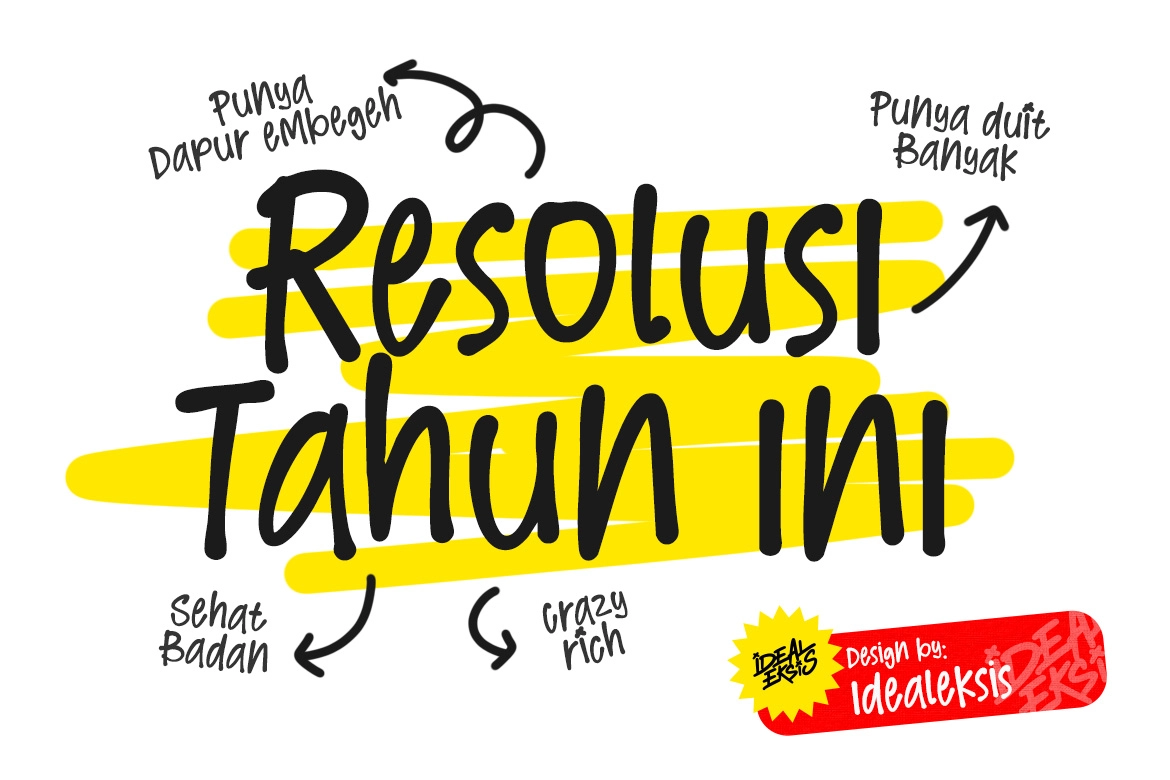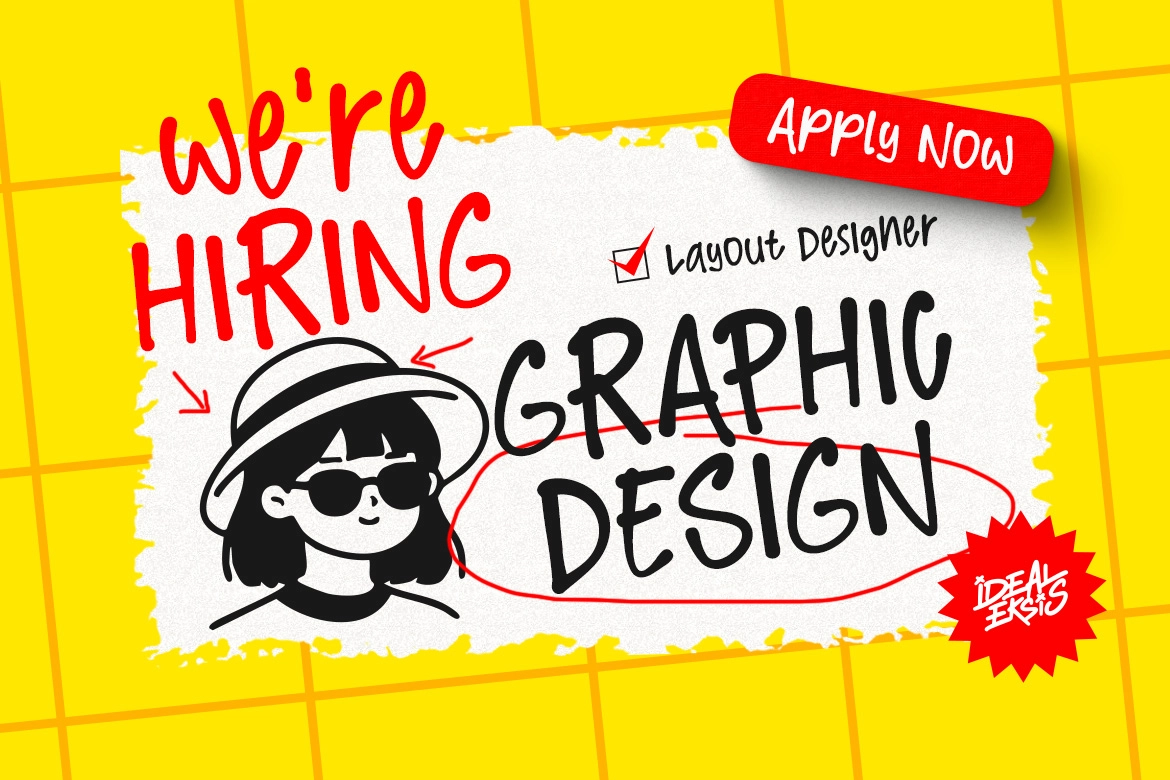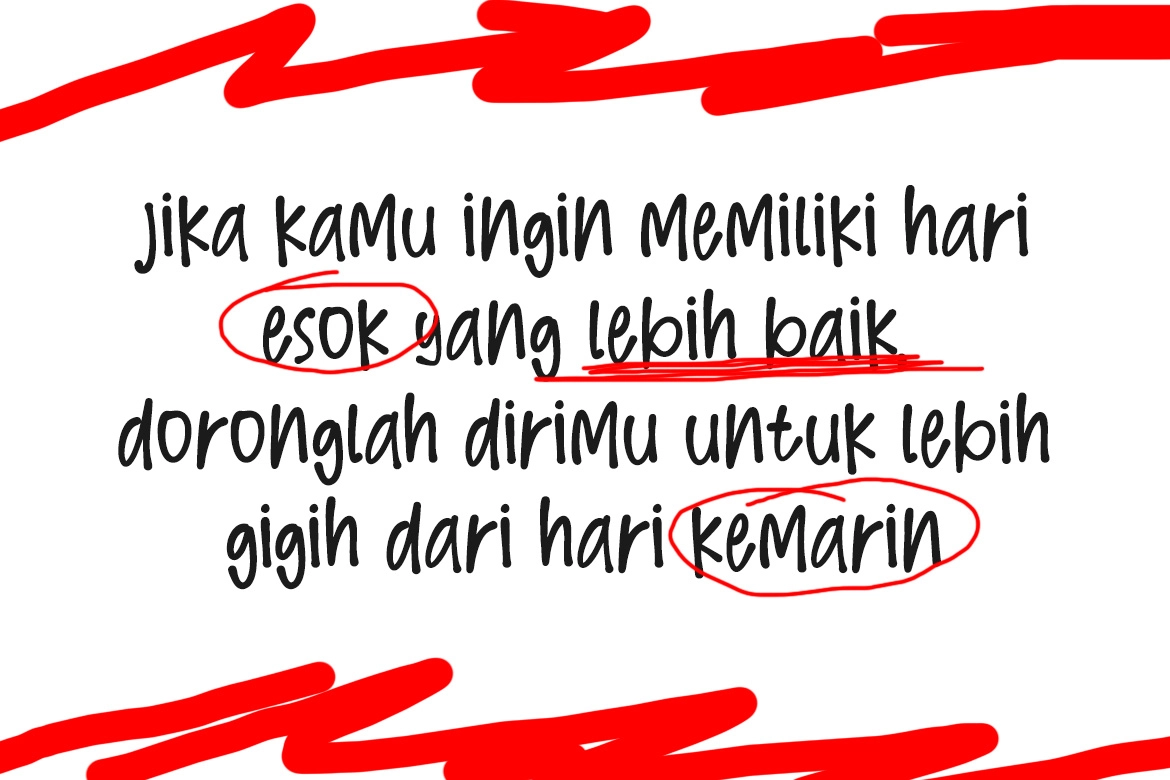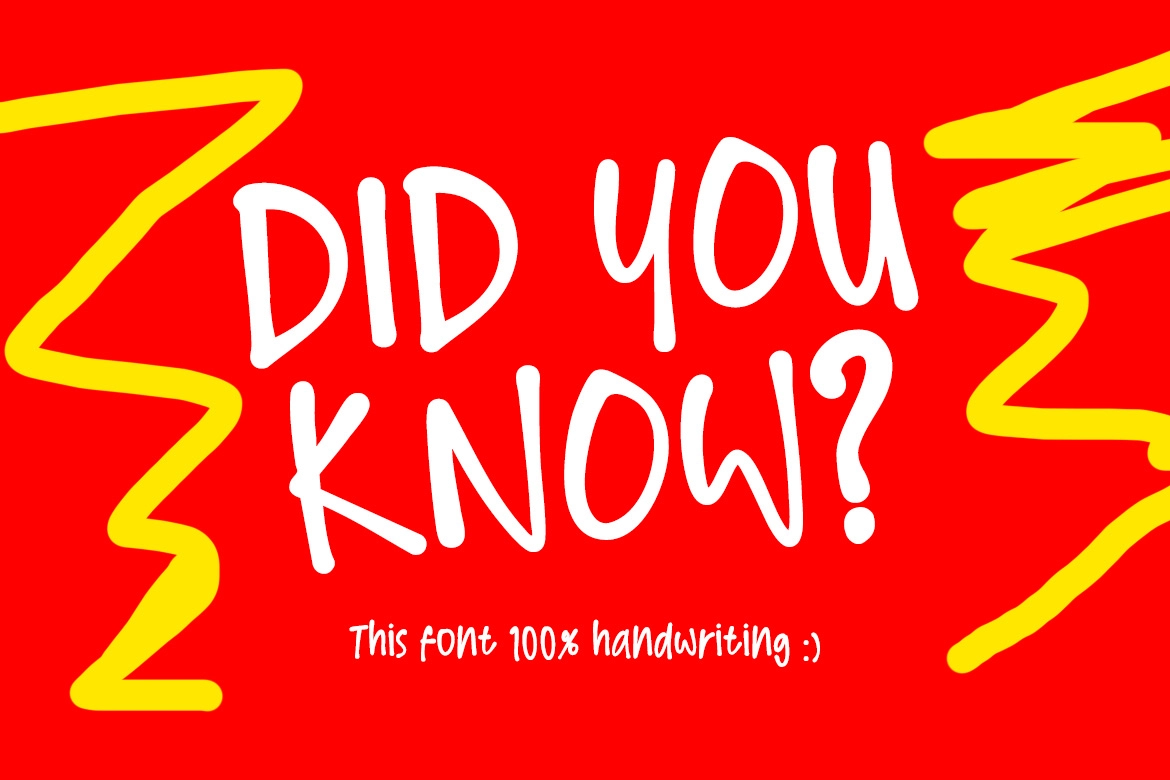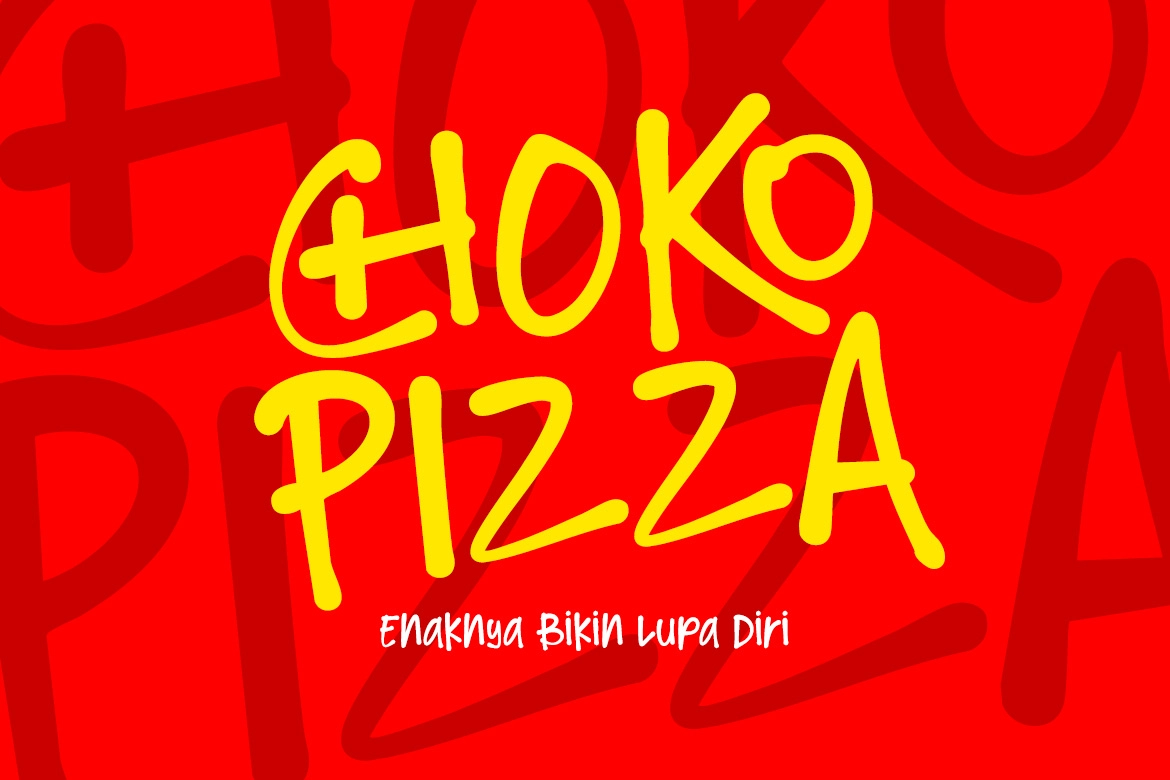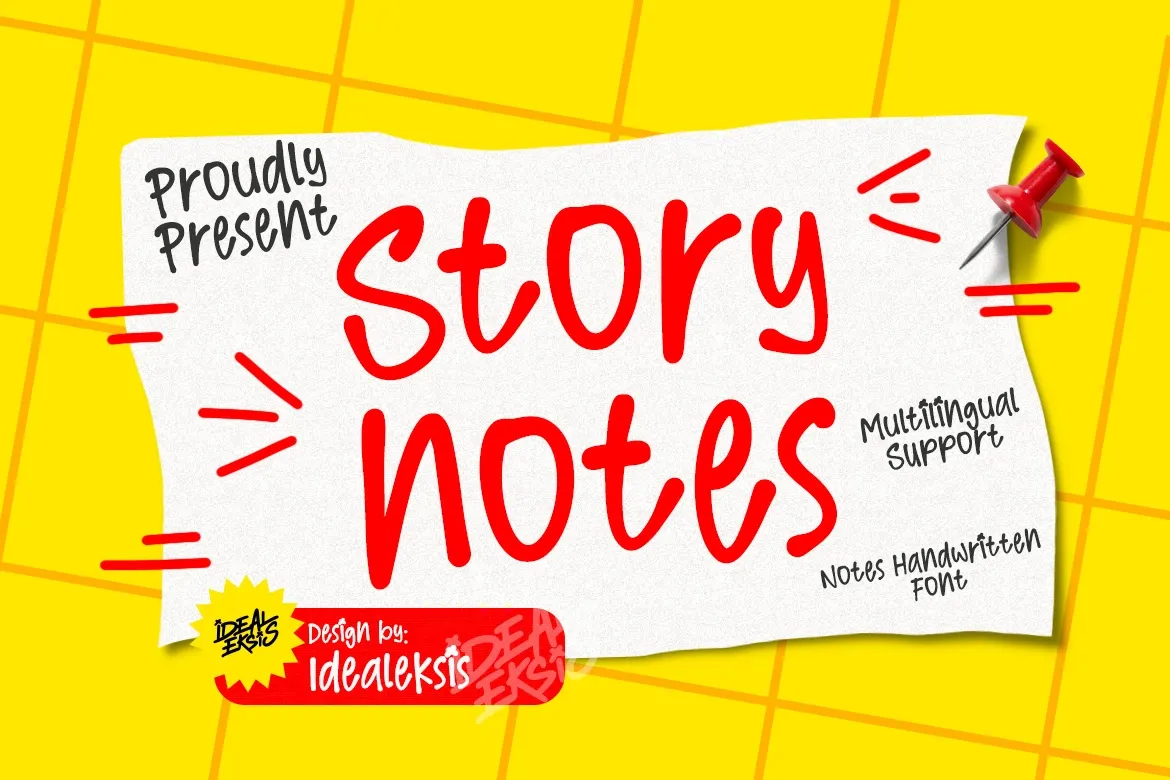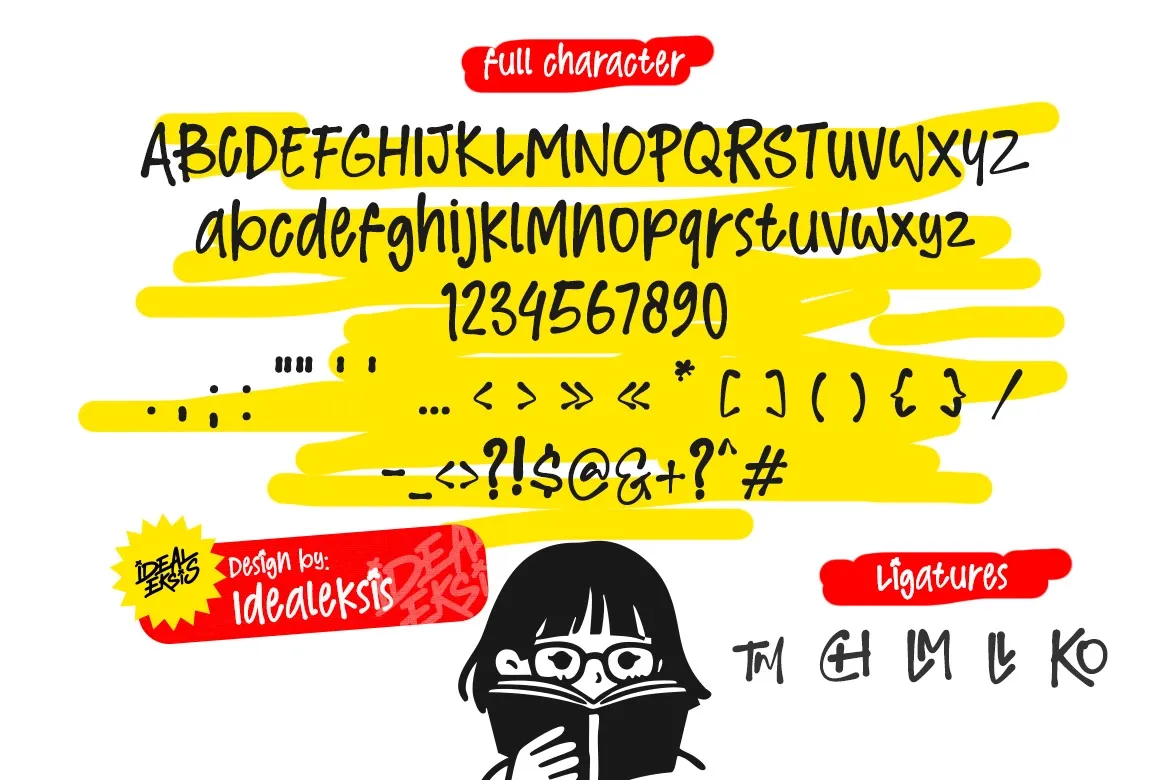
Story Notes - Notes Handwritten Font
Story Notes
Story Notes – Notes Handwritten Font is a playful and easygoing typeface inspired by everyday handwriting. With its smooth curves, rounded terminals, and consistent stroke weight, this notes handwritten font brings a natural, friendly feel to any design.
The slightly bouncy letterforms and organic flow create an authentic handwritten look while maintaining excellent readability. Designed to feel personal and expressive, Story Notes is perfect for projects that need warmth, creativity, and a human touch—whether digital or print.
- Ligatures
- Numerals & Punctuation